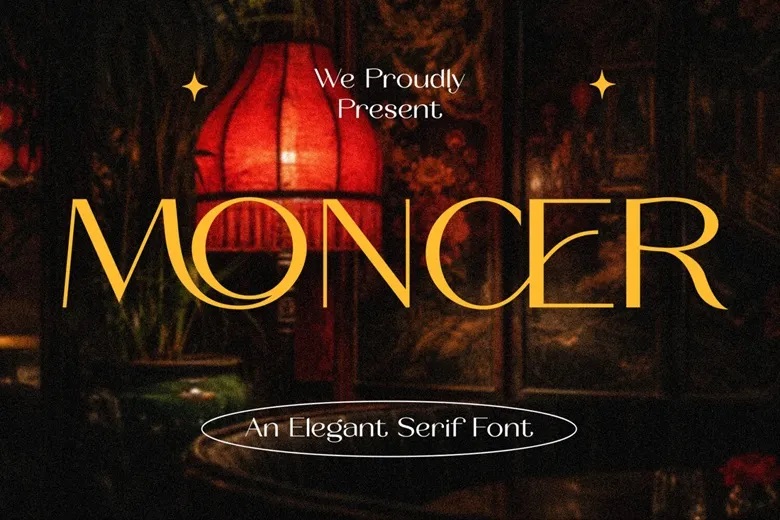
Moncer Font
Moncer is a modern serif font with an elegant and minimalist style. Moncer adds a touch of luxury and sophistication to projects like websites, logos, brand identities, social media quotes, wedding stationery, magazines, and more. Moncer offers distinctive and stylish capital letters from A to Z, along with special alternates.
Moncer Serif Font